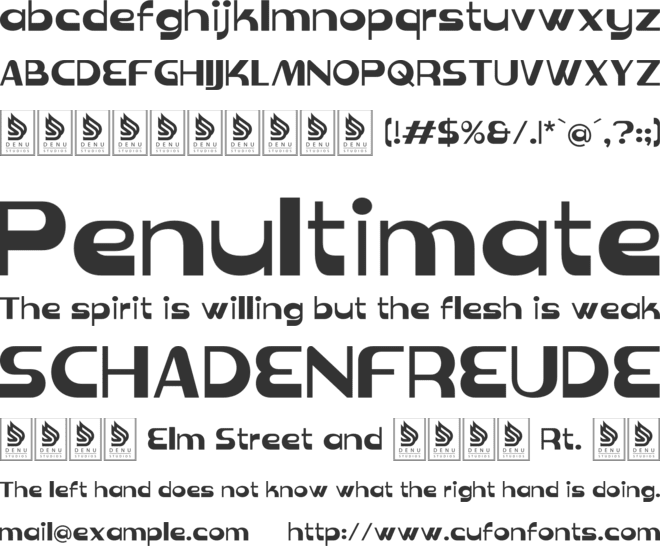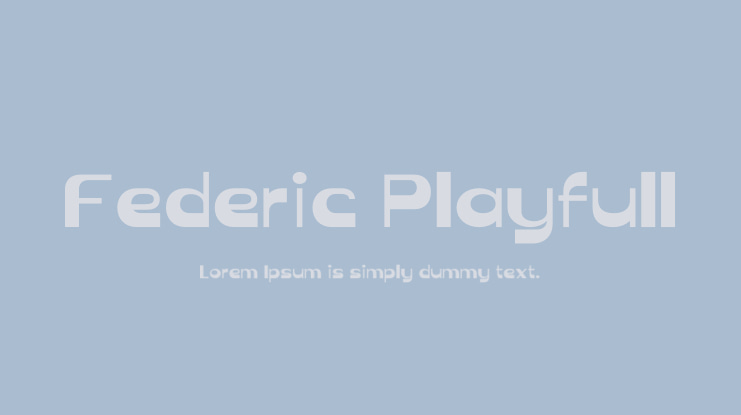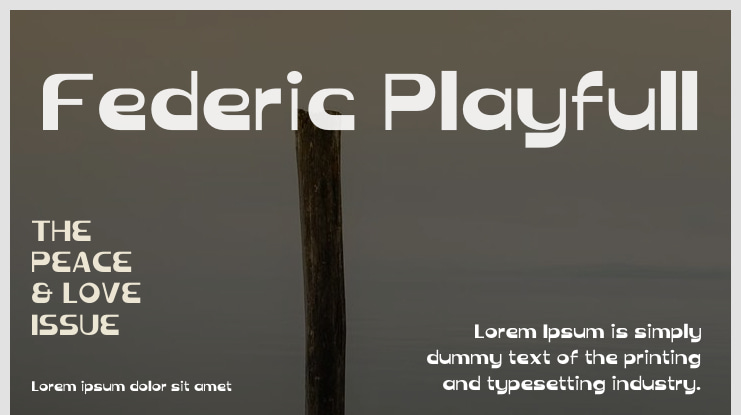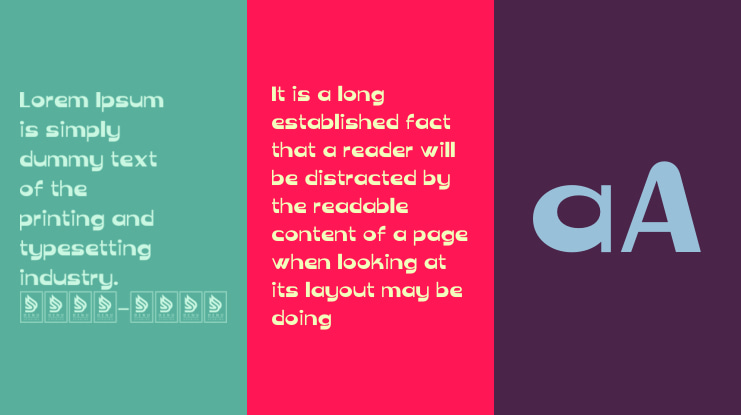
Federic Playfull Font
Federic Playfull | Playful Bold Display
This font is perfect for various projects including logos, branding, homeware designs, product packaging, mugs, quotes, posters, shopping bags, t-shirts, book covers, name cards, invitation cards, greeting cards, labels, photography, watermarks, special events, and any other projects that require a playful, bold display style.